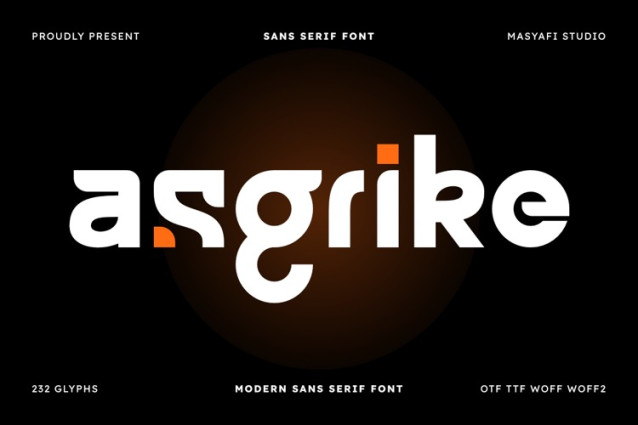
Asgrike Font
Asgrike Font a bold statement with our latest sans-serif font. With its clean lines and modern appeal, this font is sure to turn heads and leave a lasting impression. Perfect for headlines, logos, and any design that demands attention. It is both functional and stylish, making it a versatile choice for a wide range of design projects.